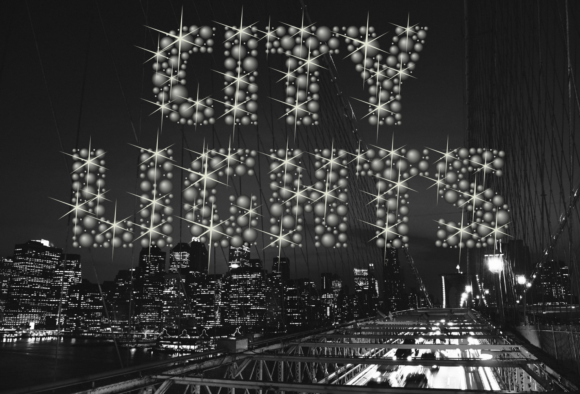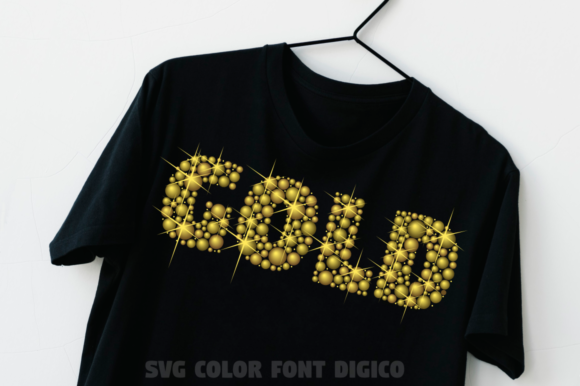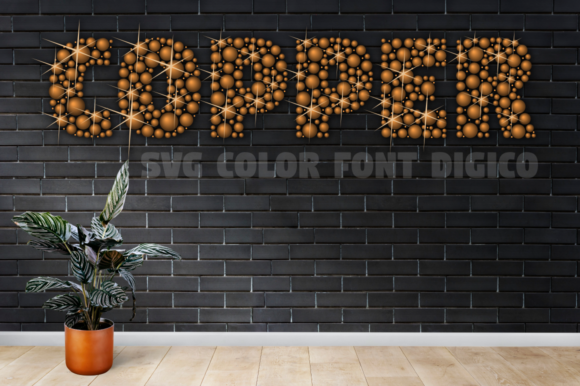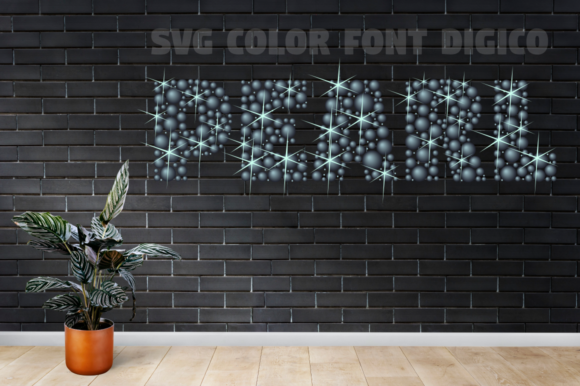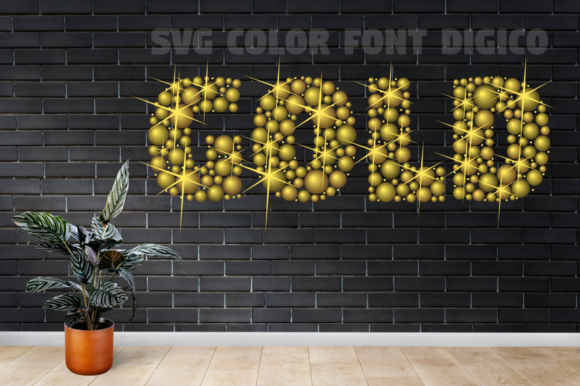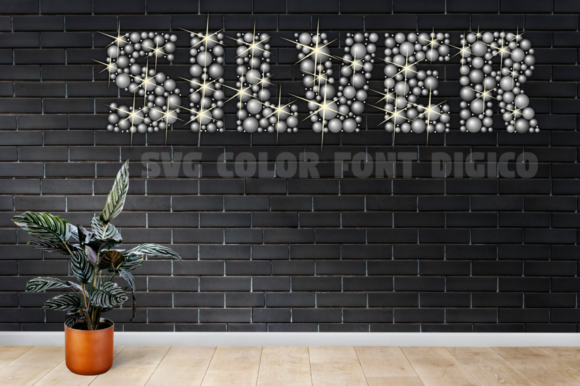
Introduction to Digico Metals Font
Digico Metals is an incredibly unique and interesting color font.
Fall in love with its incredibly versatile style and use it to create spectacular designs Note.